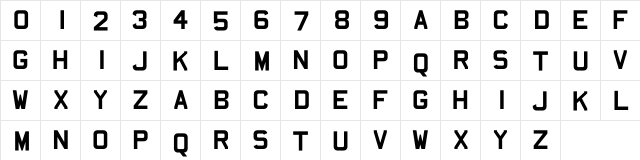
AFCarplates Regular
Design Context for AFCarplates Typeface
AFCarplates is a composed and adaptable typeface that performs quietly and consistently across a wide range of design contexts.
Pro Tip: Pair AFCarplates with a font of contrasting weight or personality to build a more expressive typographic hierarchy.